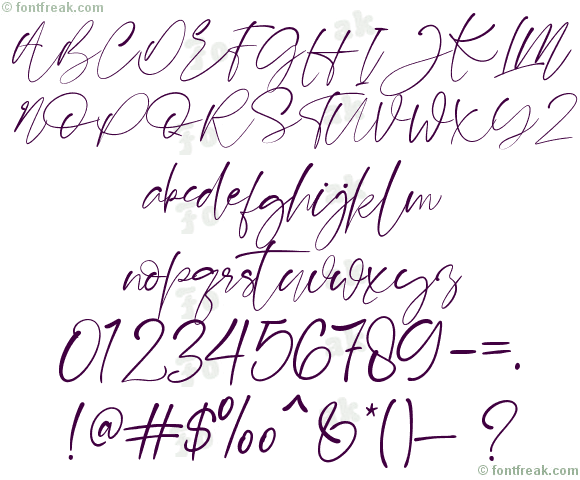
Balistone
About Balistone
Balistone, designed by Burhan Afif in 2020, is a captivating script font that exudes elegance and sophistication. This font is characterized by its graceful strokes and fluid lines, making it an ideal choice for a variety of design projects. The delicate contrast between thick and thin strokes adds a touch of refinement, while the ample spacing between letters enhances readability, ensuring that the text remains clear and engaging.
One of the standout features of Balistone is its decorative elements, which include subtle flourishes and swirls that provide a sense of movement and dynamism. These characteristics make it particularly well-suited for wedding invitations, where a romantic touch is paramount. Additionally, Balistone can elevate the aesthetic of restaurant menus, lending a refined touch to culinary offerings. Its unique style also makes it perfect for movie posters, where it can capture the viewer's attention and convey the film's theme. Small business owners looking to create a memorable brand identity can also benefit from this font, as it embodies a sense of professionalism combined with creativity.
The target audience for Balistone includes graphic designers, small business owners, and content creators seeking to enhance their visual communication. Whether designing marketing materials, crafting social media posts, or developing branding assets, this font adds an artistic flair that resonates with viewers.